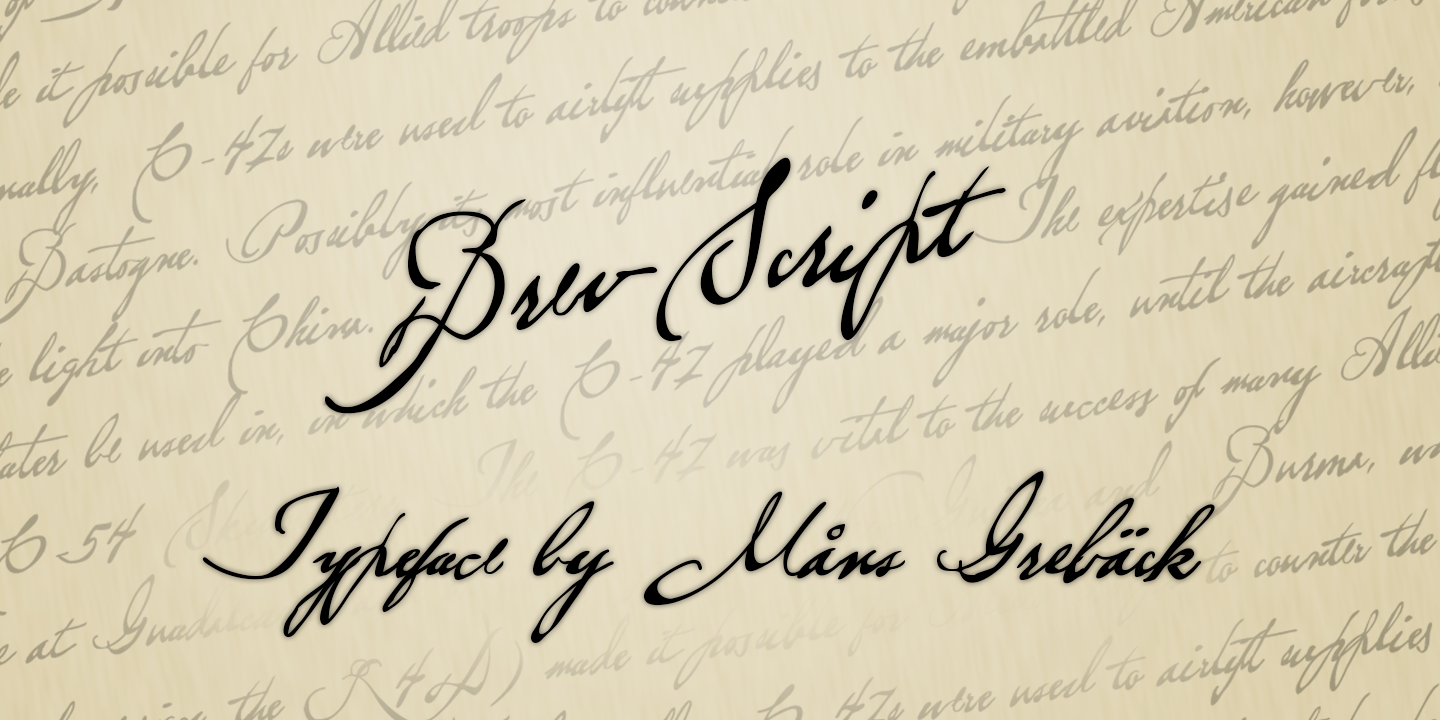
Brev Script
Old style handwriting, inspired by 1800-1900's letters. Contains hundreds of alternate glyphs; each lower case letter has four variations, accessible through contextual and standard alternates.